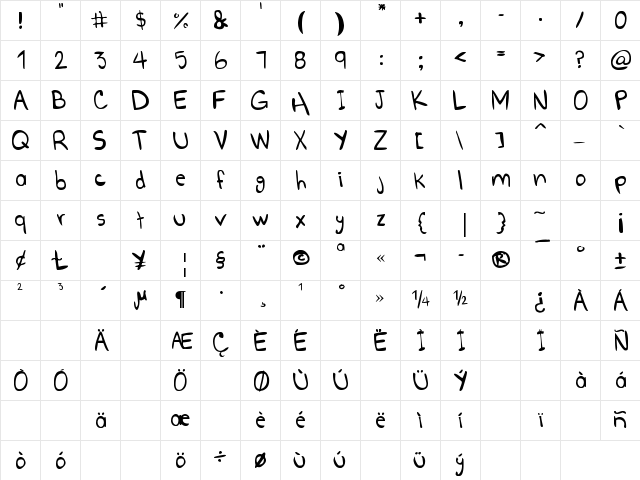
Go Boom! Regular
| Designer | Miguel Angel Rios Garcia |
Design Context for Go Boom! Typeface
Go Boom! is a composed and adaptable typeface that performs quietly and consistently across a wide range of design contexts.